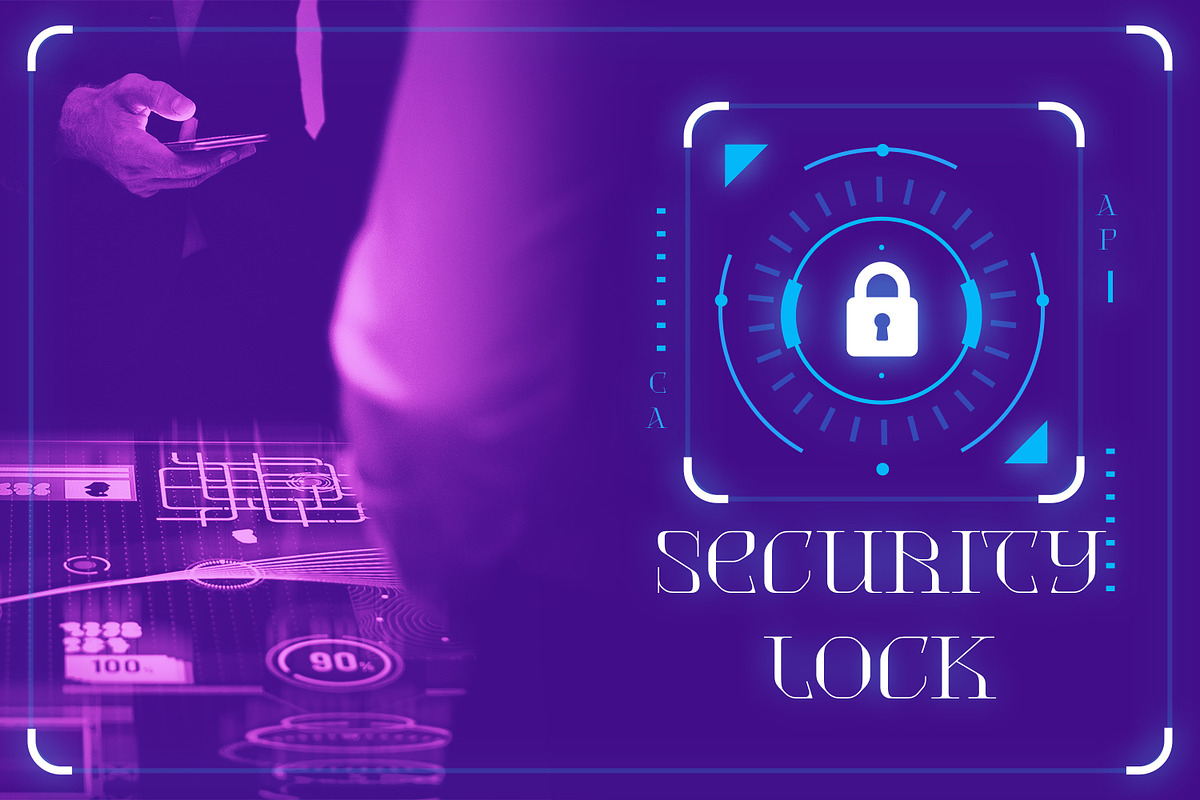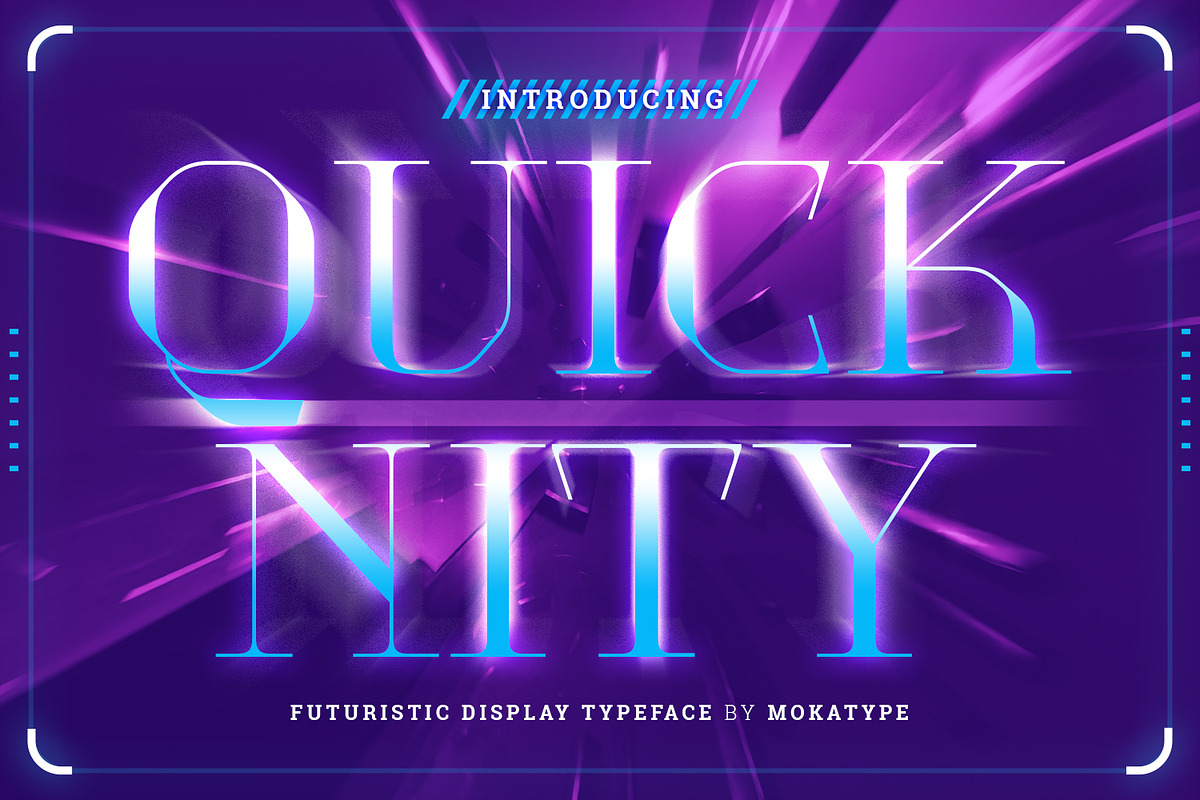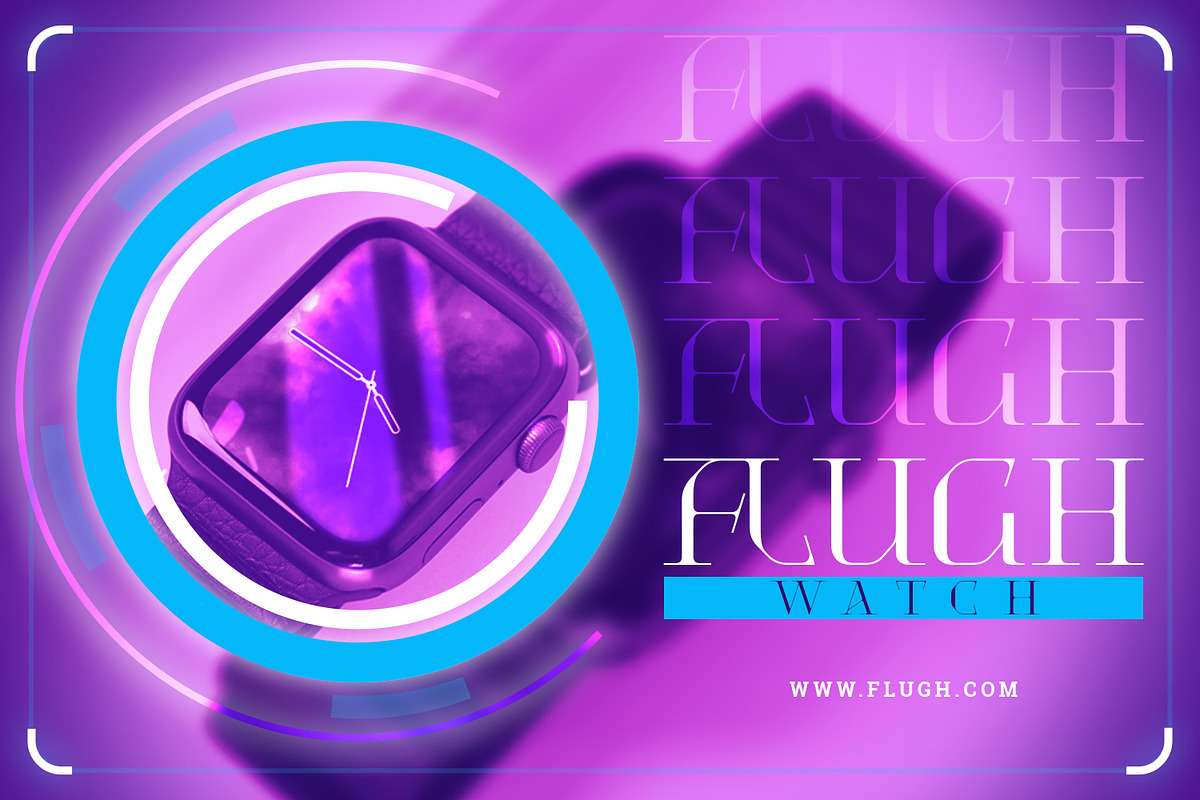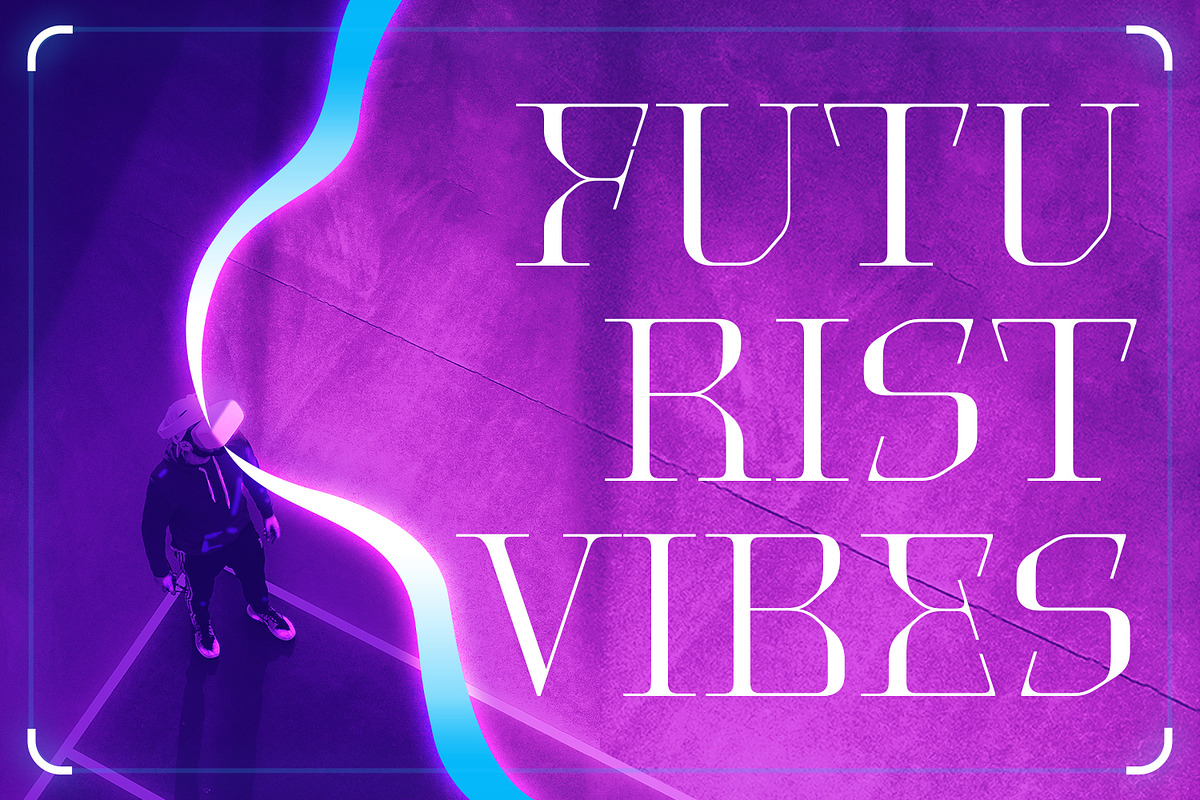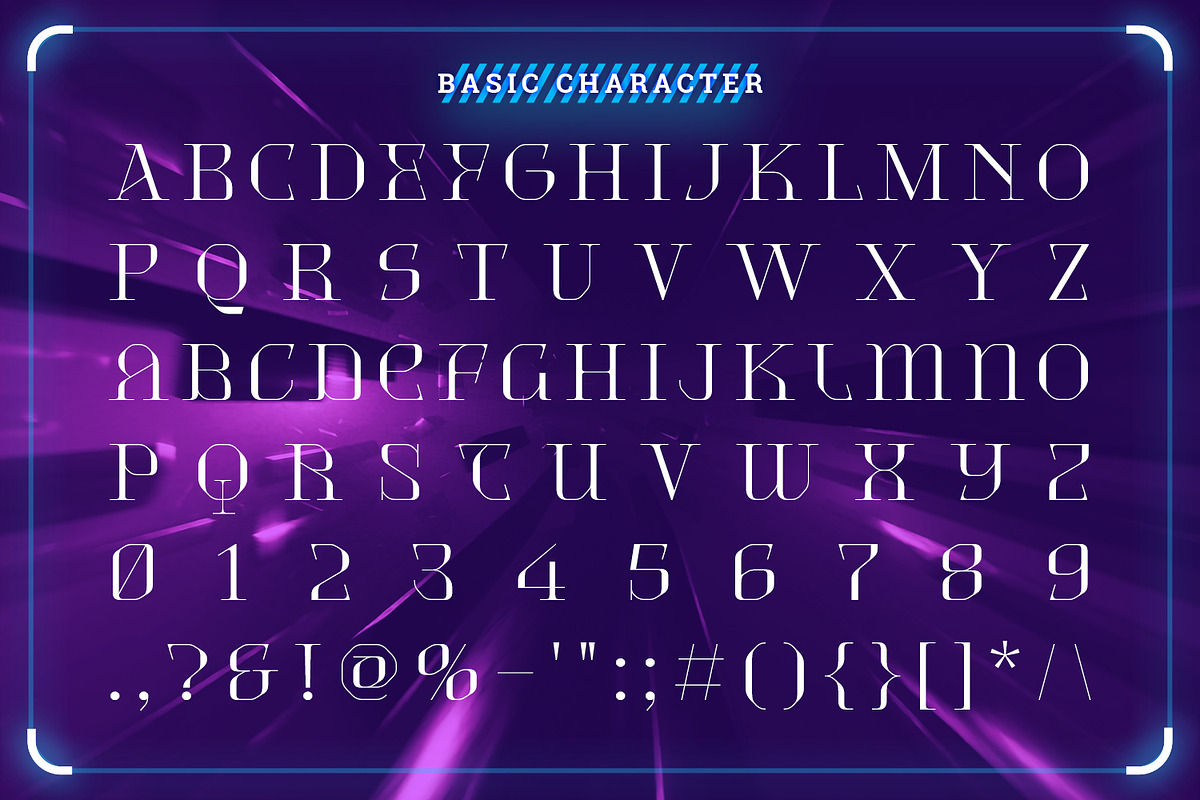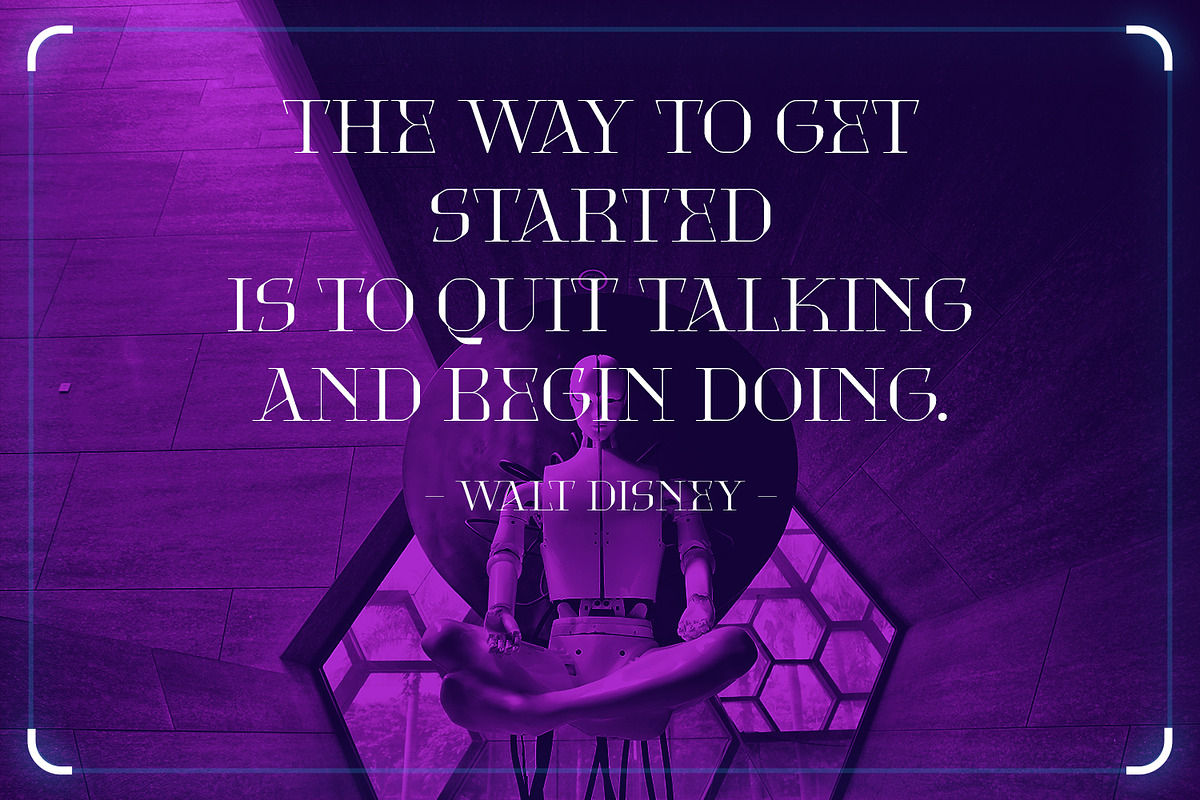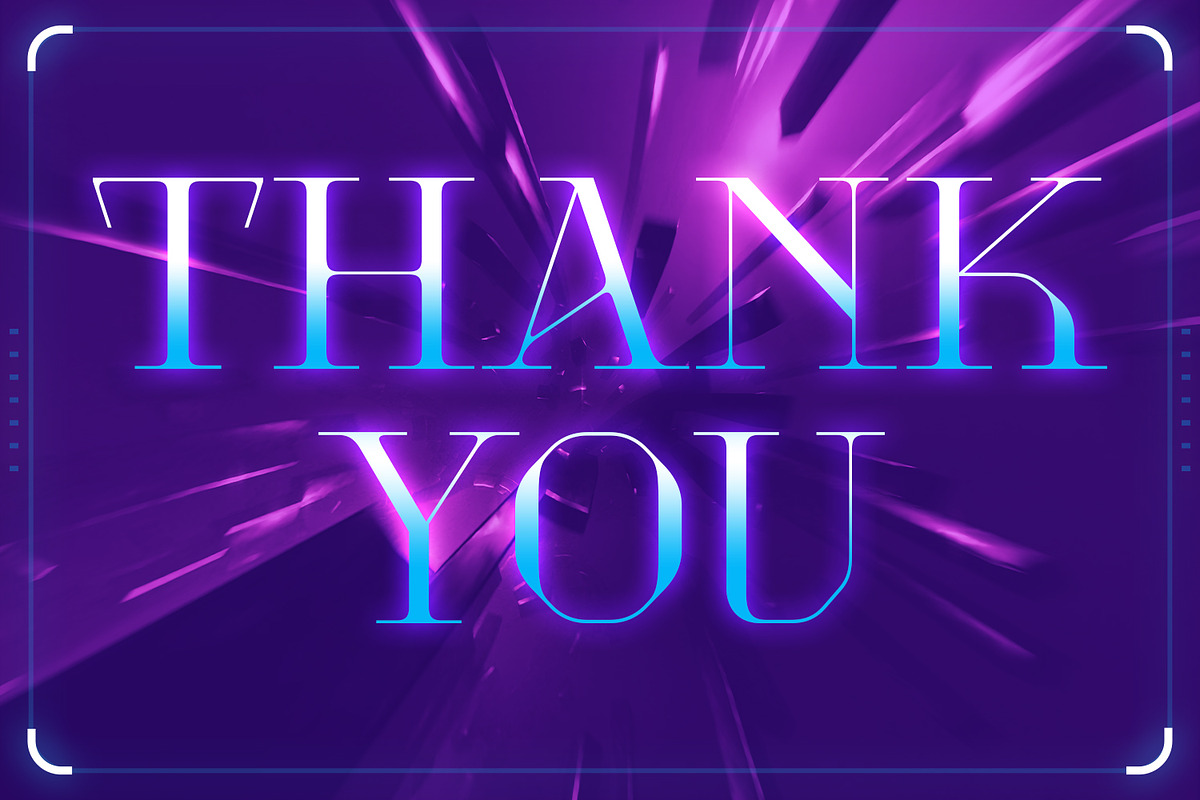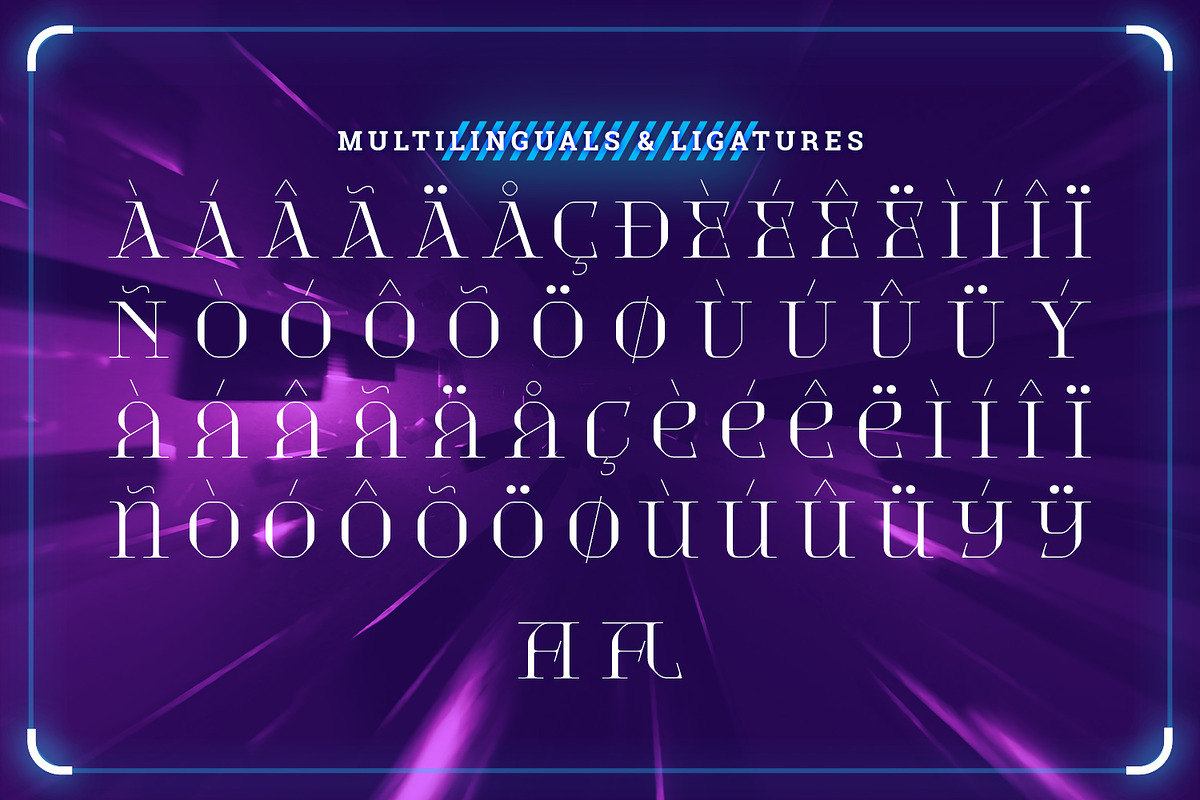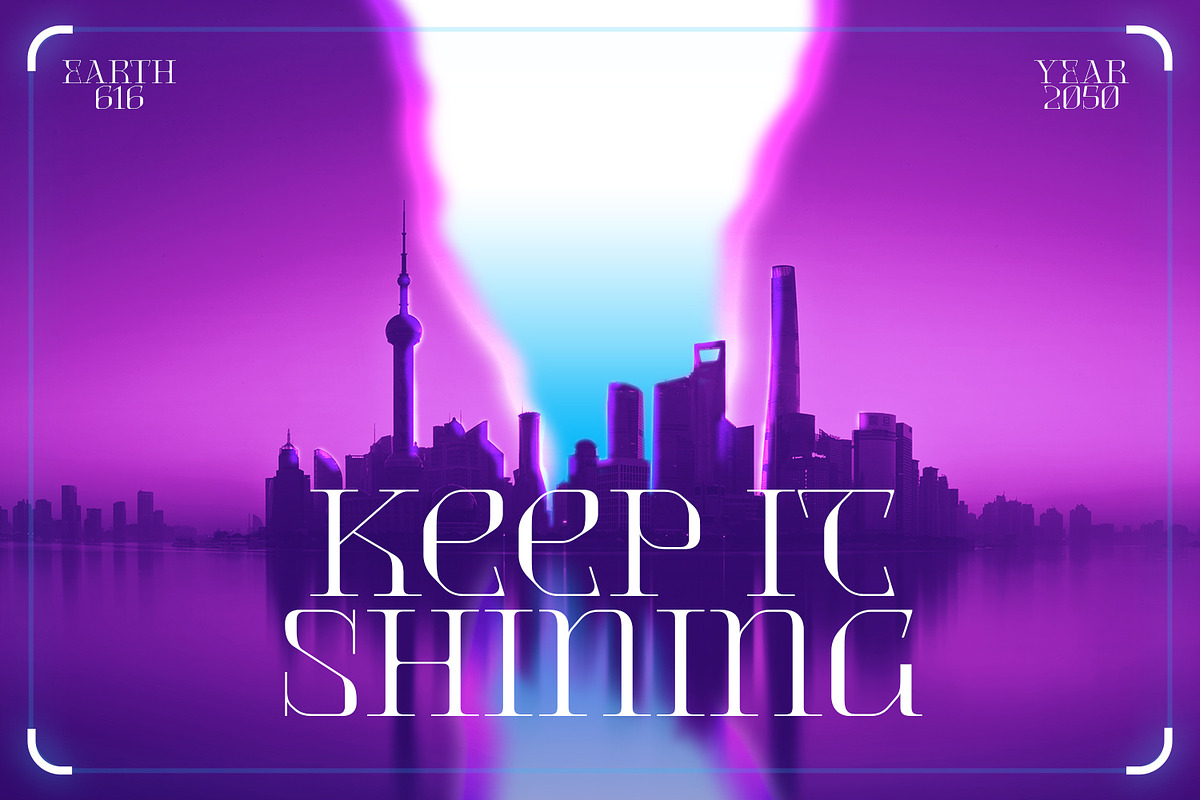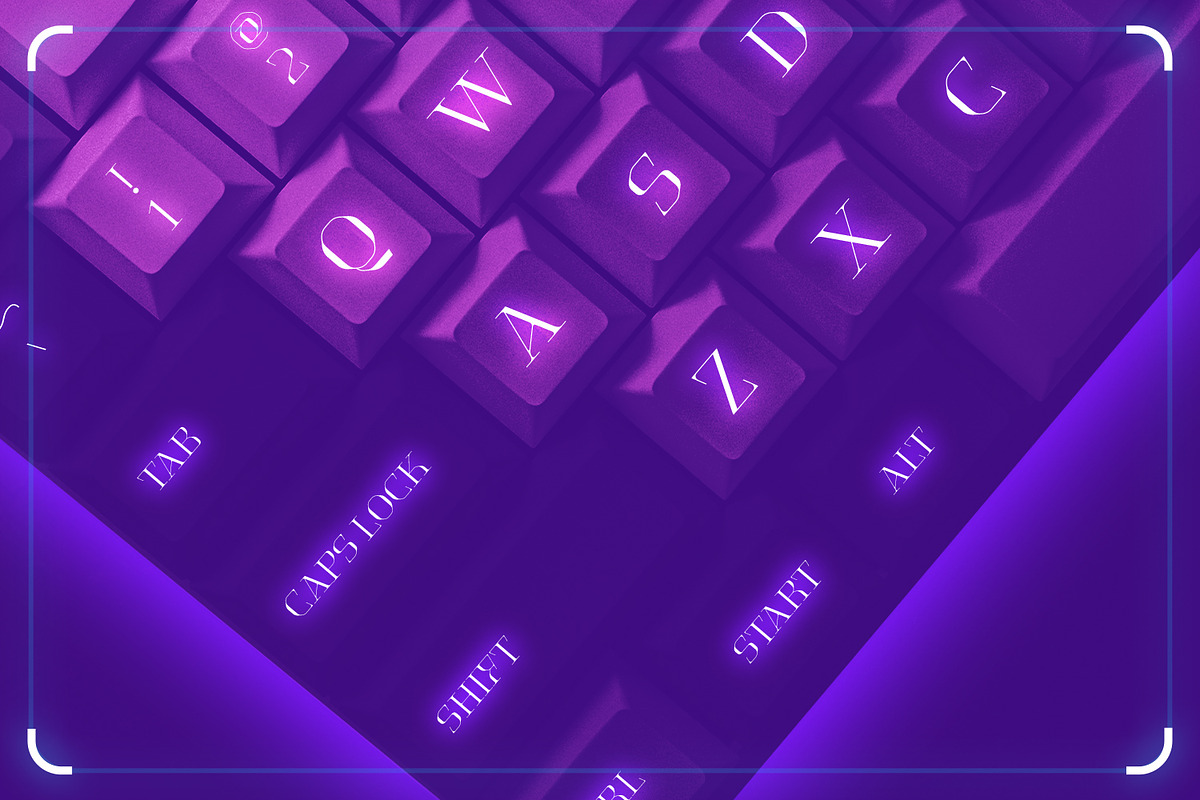
Quicknity - Futuristic Display
Quicknity is an angular serif font with future nuances, and consistent angles throughout each letter, uppercase and lowercase have the same size, so you can exchange between them in any design. Quicknity is perfect for large text, like headlines or designs with a short text.
- Ligatures (Opentype features)